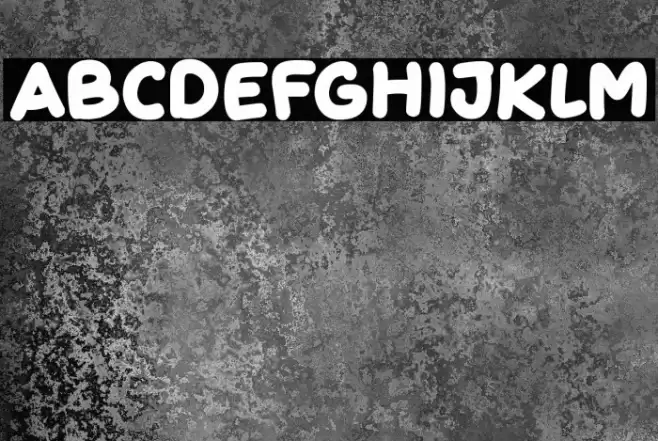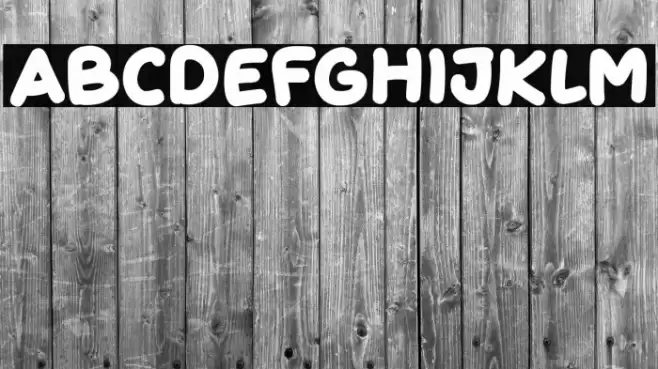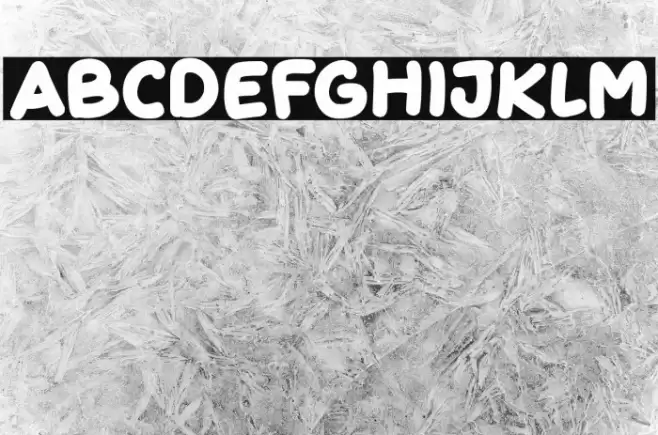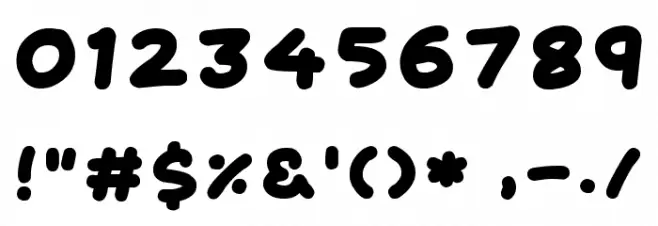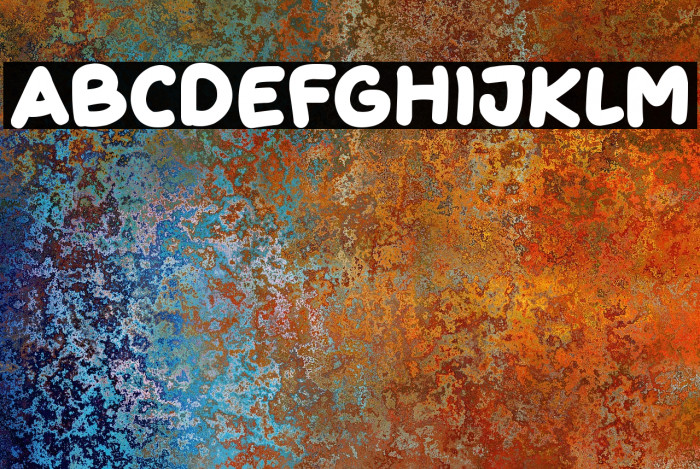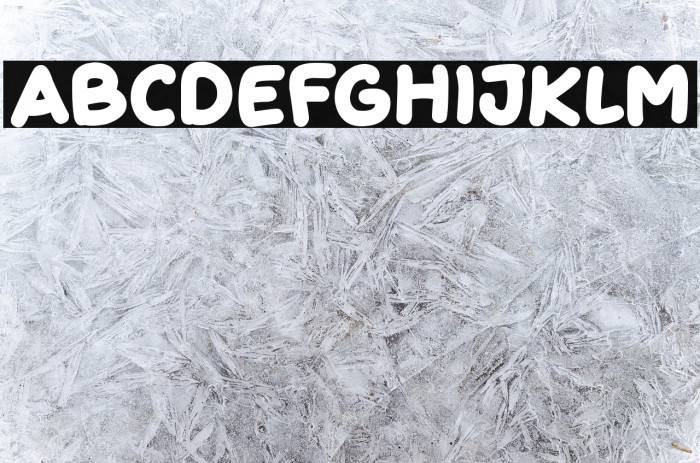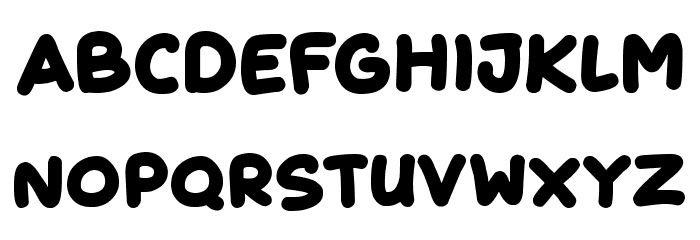
To Japan Font
To Japan Description
This playful and bold font features rounded, thick strokes that give it a friendly and approachable appearance. The characters are uniformly bold with a consistent stroke width, creating a cohesive and visually appealing look. The rounded edges and slightly irregular shapes add a touch of whimsy, making it ideal for projects that require a fun and informal tone. The numbers and special characters maintain the same playful style, ensuring consistency across all text elements. This font is perfect for designs that aim to capture attention with a lively and energetic vibe.
A playful, bold font with rounded, thick strokes and a friendly appearance from Cartoon fonts.
- Proposed Projects: Ideal for children's books, playful branding, casual invitations, and fun posters.
- Overall Style: Playful